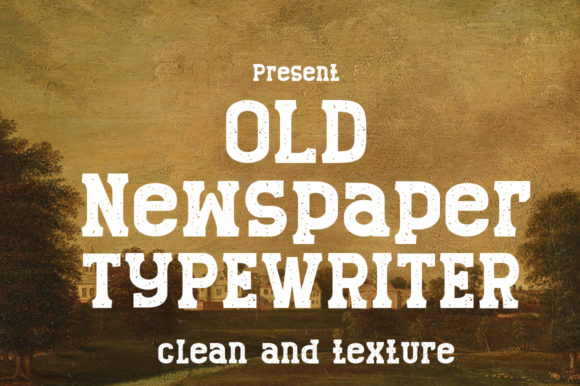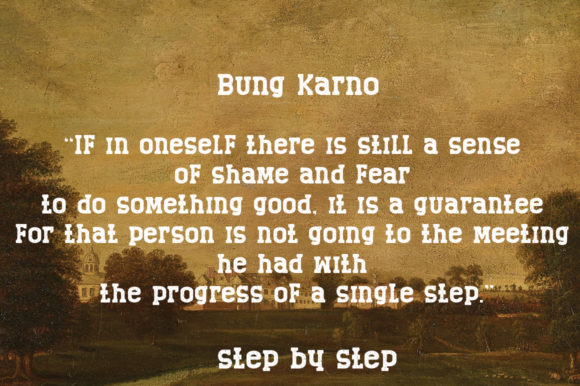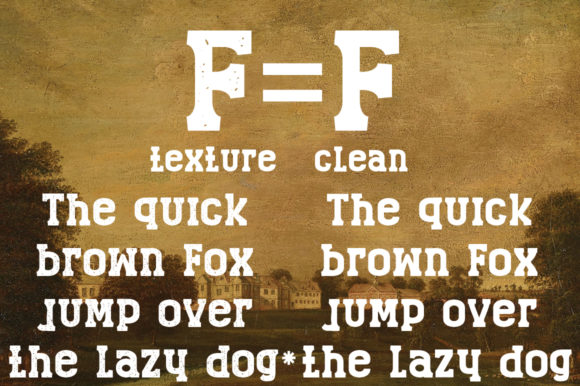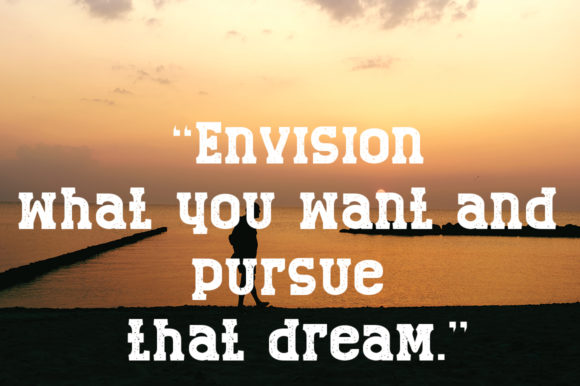
Old Newspaper Font
About the Old Newspaper Font
From logos to headlines, the Old Newspaper Font is the perfect choice for making a lasting impression. Old Newspaper is a great display font. It will bring a nostalgic feel to your designs. Use it to add that special retro touch to any design idea you can think of!
Old Newspaper excels as a display font for headlines, posters, and short-form branding applications where its nostalgic charm adds character. Its strong verticality and slightly condensed letterforms make it ideal for grabbing attention in limited spaces, such as logos or short taglines. However, its intricate details and high contrast make it less suitable for body text or UI elements requiring high readability.
This font’s personality is distinctly bold and nostalgic, lending itself well to projects with a vintage, retro, or heritage feel. Consider pairing it with a clean sans-serif like Helvetica Neue for a balanced contrast, or a more playful script font for a vintage feel. A geometric sans-serif could also provide a modern counterpoint to its classic charm.
Avoid using Old Newspaper for long-form content or situations prioritizing screen readability. Its assertive nature might overwhelm smaller formats.